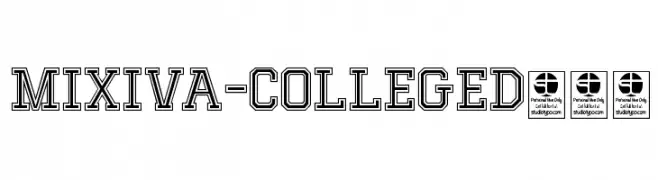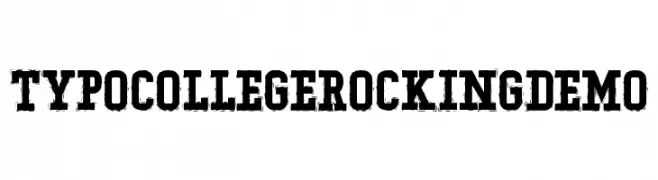
A bold, outlined font with a collegiate and athletic style.
A bold, outlined collegiate-style font with a strong, structured appearance.
A bold, textured font with a vintage collegiate style, ideal for impactful designs.
A bold, collegiate-style font with strong, block-like characters.
A distressed, vintage collegiate-style font with a rugged, worn-out appearance.
A bold, collegiate-style font with strong, blocky characters and pronounced serifs.
A bold, outlined collegiate-style font with strong, clean lines.
A bold, rounded font with a collegiate style and friendly appearance.
A bold, distressed collegiate-style font with a vintage, rugged appearance.